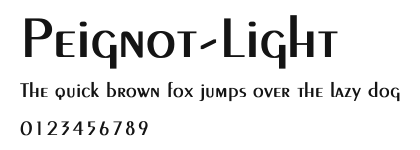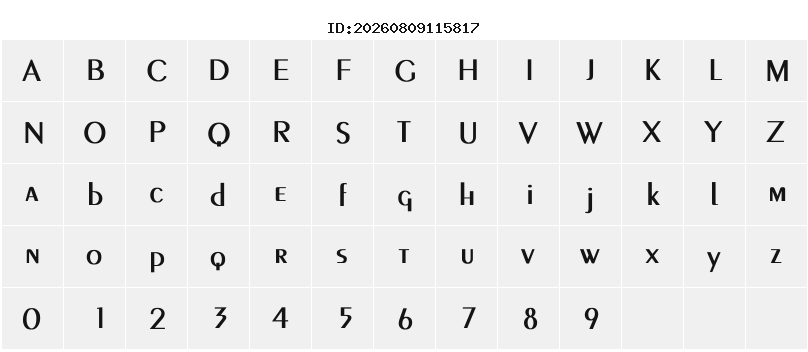
• Font Name: Peignot-Light
• Full Font Name: Peignot-Light Bold
About Peignot-Light.ttf
Peignot-Light.ttf is a modern, elegant sans-serif font designed for ultimate readability and visual harmony. Perfect for branding, headlines, web design, and print materials.